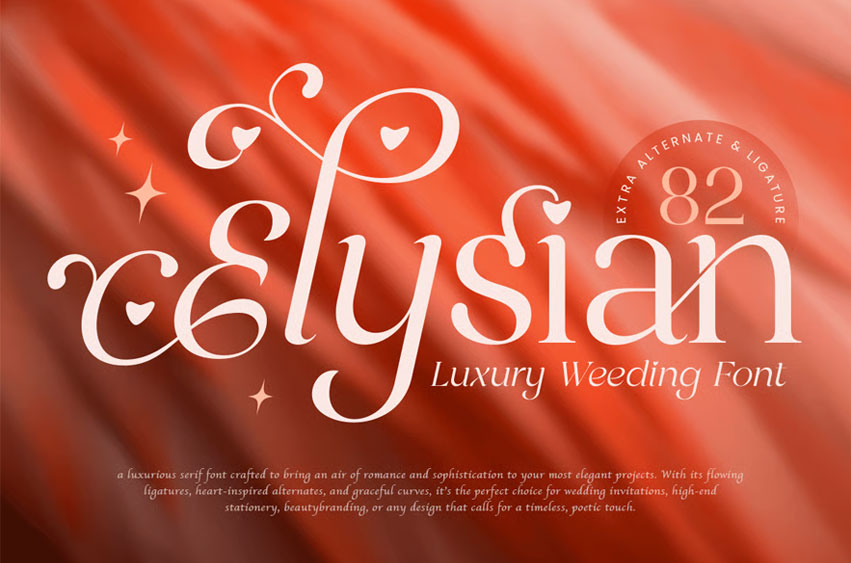
Elysian Font
Elysian Font is a luxury wedding font designed to capture the essence of romance, elegance, and timeless beauty. With graceful curves and refined letterforms, this typeface is perfect for wedding invitations, elegant branding, love-themed stationery, and high-end packaging.
Inspired by classic calligraphy with a touch of modern sophistication, Elysian evokes emotion and charm in every detail. Its balanced spacing and flowing structure make it perfect for names, quotes, and decorative text in both digital and print designs.
Ideal for designers and brides looking to create a cohesive visual theme, Elysian pairs beautifully with serif or sans-serif fonts for elevated compositions — making it a go-to choice for luxury brands, wedding suites, and romantic campaigns.
Elysian – Luxury Wedding Font Features
• Elegant and romantic letterforms with luxurious details
• Available with Regular and Italic Style perfect for Branding
• Perfect for wedding invitations, stationery, and high-end branding
• Works beautifully for logos, packaging, and editorial titles
• Timeless style with refined calligraphic influences
• OpenType features for advanced typographic customization
Celebrate elegance and romance with Elysian – the ultimate luxury wedding font for timeless invitations and sophisticated branding.